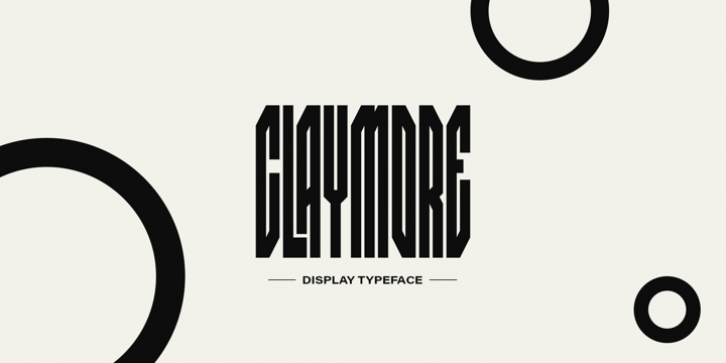
BK Claymore was designed by Borislav Korablev and published by Borislav Korablev. BK Claymore contains 12 styles and family package options. The font is currently #40 in Hot New Fonts.
Claymore is an ultra-condensed variable display typeface mainly created for expressive and decorative purposes. Enriched with a wide list of alternates and ligatures which cover a huge range of letter combinations, Claymore can become a powerful weapon to those, who want to make their typographic accents in design bright and unique.
1. Basic. Claymore Regular, Oblique, Regular Hollow, Oblique Hollow, Variable, Variable Hollow.
Uppercase glyphs only338 Glyphs including 60 alternatesLatin, Latin Extended, and Cyrillic alphabetsTwo variable fonts to customize height and slant.
2. Basic + Ligatures. Claymore Ligatures Regular, Ligatures Oblique, Ligatures Regular Hollow, Ligatures
Oblique Hollow, Variable Ligatures, Variable Ligatures Hollow.
Uppercase glyphs only338 Glyphs including 60 alternates1054 Ligatures total value (527 unique as they are doubled to be uppercase and lowercase). Latin, Latin Extended, and Cyrillic alphabetsTwo variable fonts to customize height and slant.
Advice on ligatures usage.
Ligatures work properly only with uppercase or lowercase typing like UTU or utu.
Combination of uppercase and lowercase letters like uTu or UtU will not be considered as ligature.